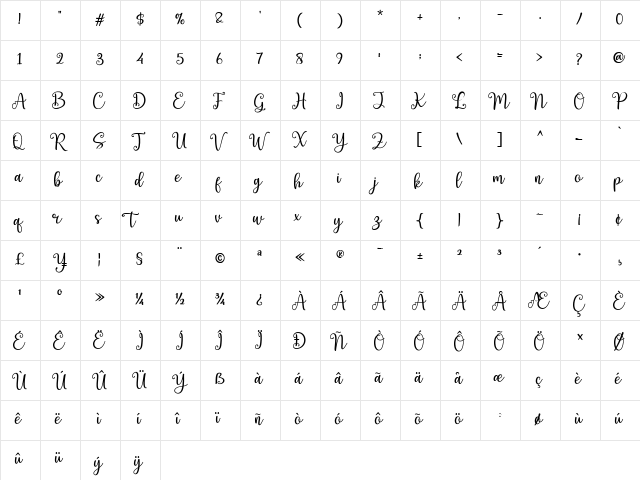
Samutin Regular
Design Context for Samutin Typeface
Samutin is a composed and adaptable typeface that performs quietly and consistently across a wide range of design contexts.